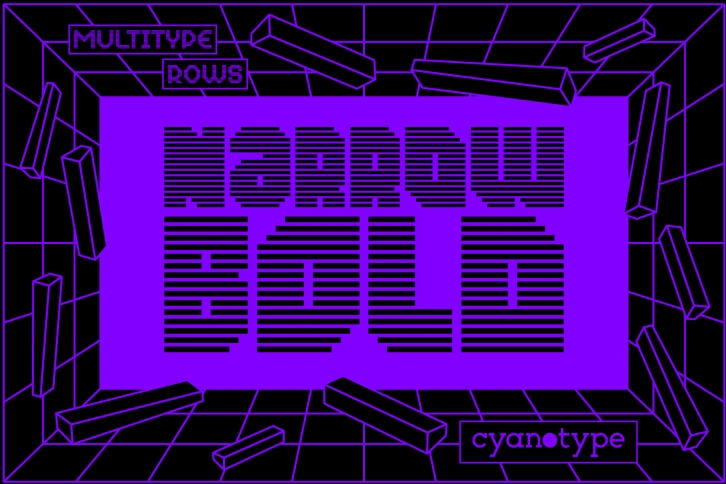
MultiType Rows Narrow Bold is a cool, uniquely shaped, pixelated display font. Add a distorted and trendy touch to your designs with this unusual pixel font! MultiType Rows Narrow Bold is PUA encoded which means you can access all glyphs and swashes with ease!